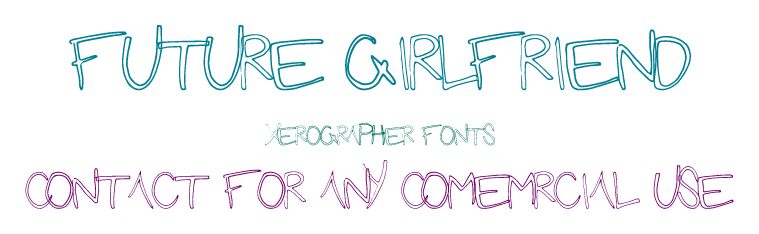
Future Girlfriend from Xerographer Fonts is a free outlined comic display font with lanky, uneven capitals and a deliberately loose contour. Its doubled strokes wobble, overlap, and change width from letter to letter.
Indie bands and DIY event organizers could use it for gig posters, album covers, and T-shirt graphics with an offbeat homemade edge. The looping outlines resemble quick marker doodles, letting the lettering merge directly with playful character art and scribbled patterns.